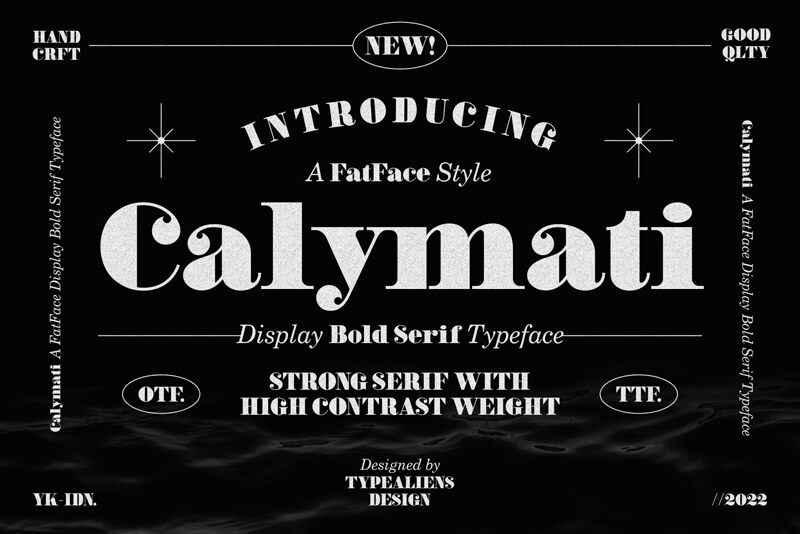
Calymati emerges as a bold tribute to the elegance of yesteryear, with a serif design that exudes a retro charm. Crafted by ilhamtaro, its robust forms and sweeping curves evoke the warmth of vintage typography while making a confident statement in modern contexts. This font captivates with its blend of timeless sophistication and contemporary flair.
Its pronounced serifs and substantial letterforms make Calymati an ideal choice for headlines, branding, and advertising where a touch of nostalgia is desired without sacrificing impact. Its aesthetic allure lies in its ability to marry the old with the new, offering designers a versatile tool for creating visuals that resonate both emotionally and visually across various mediums.